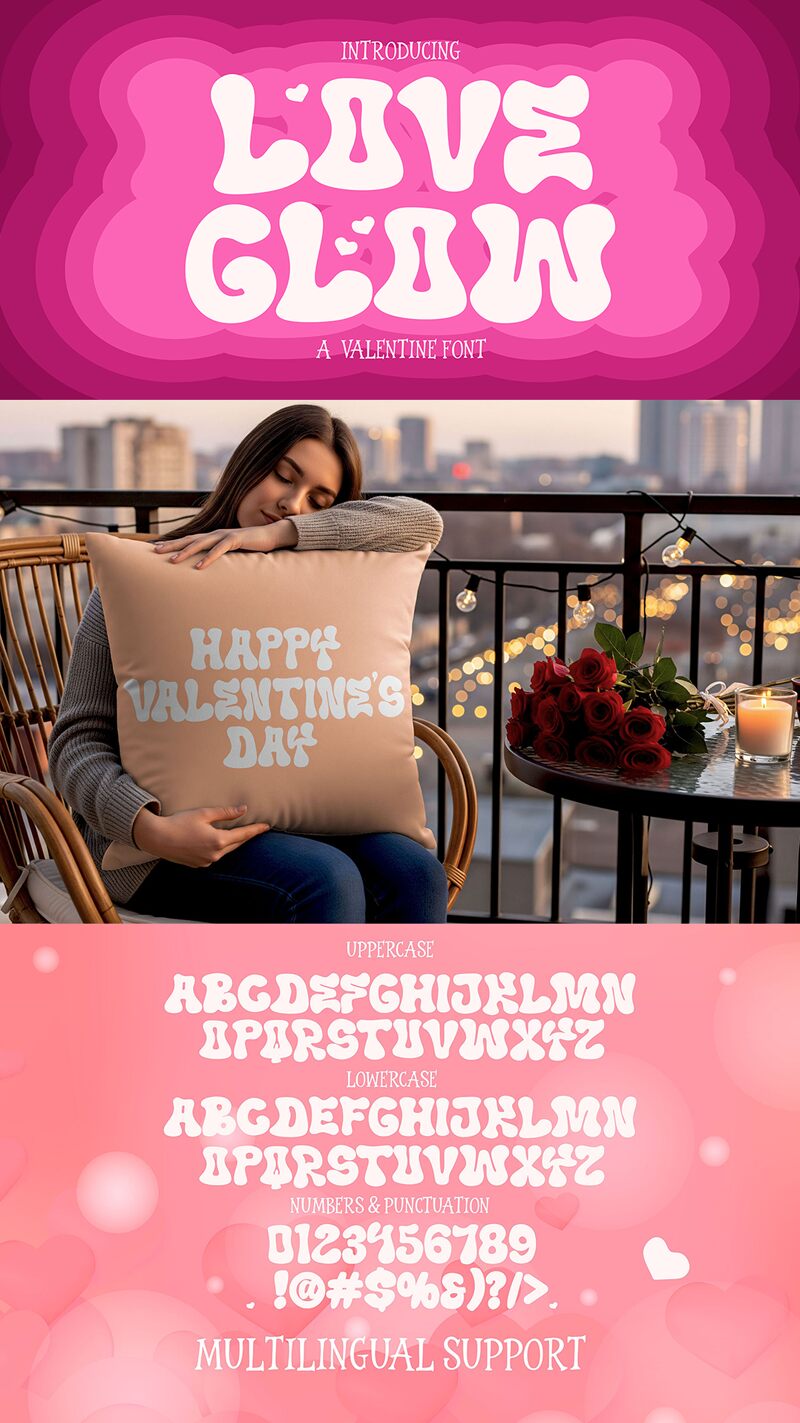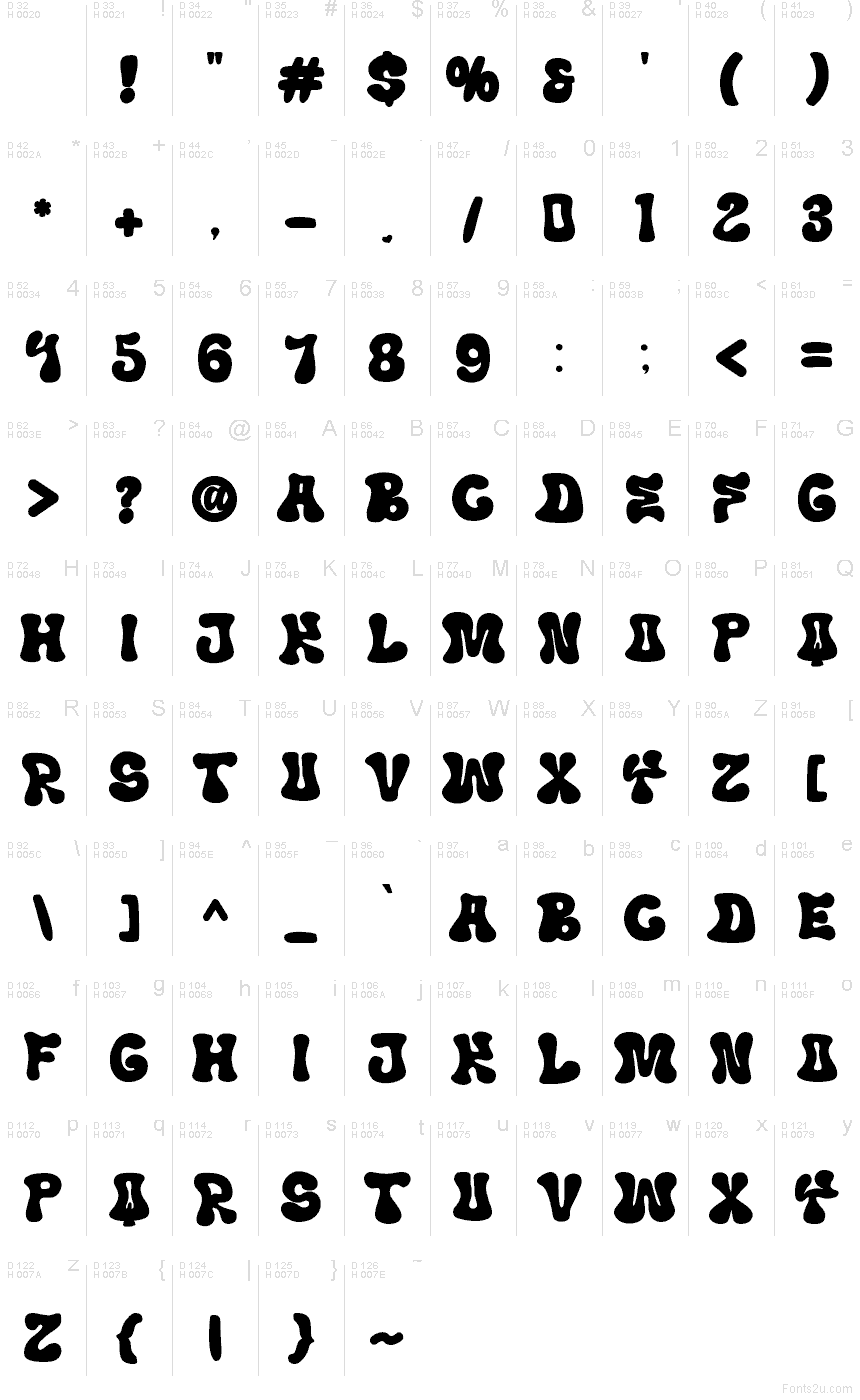
Love Glow
Love Glow font by Saepul milah of Figuree Studio is a free groovy display font with soft, melty letterforms that feel like vinyl decals warmed by the sun. Its chunky, bubble-built rhythm stays readable while still giving you that 70s swirl—bold, cuddly, and a little psychedelic without getting messy.
Using Love Glow on posters, album art, event flyers, café menus, sticker packs, Instagram titles, and playful merch gives headlines instant personality. Keep it large with generous spacing so the curves can breathe, and pair it with a clean geometric sans for body copy to keep the vibe crisp. This free font shines when you want warmth and motion in one hit.